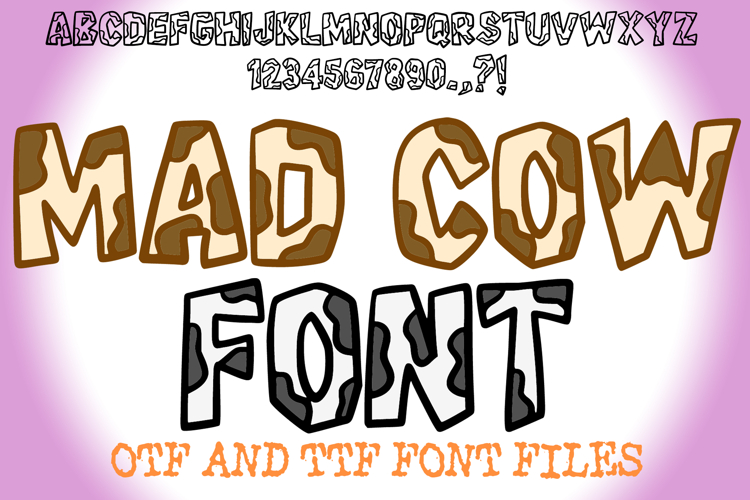
Mad Cow Print Handwriting Alphabet Lettering ABC Text Font
Moo-ve over, ordinary fonts! Unleash a dose of farmyard fun and quirky charm with Mad Cow Font! This delightfully unique typeface is designed to bring the iconic, playful patterns of cowhide directly to your text. It's more than just a font; it's an instant burst of rural whimsy, perfect for projects that demand a touch of rustic flair, unique texture, and undeniable visual appeal!
Each character in Mad Cow Font features a bold, slightly irregular outline, with its interior meticulously filled with an authentic and intricate cow print pattern. This unique and eye-catching visual effect makes it an ideal choice for farm-themed branding, children's products, dairy packaging, country fair signage, playful apparel designs, rustic event invitations, or any design calling for a unique blend of animal charm and animated personality.
Whether you're creating lively event promotions, designing daring product packaging, crafting exciting social media posts for country or farm-related brands, or adding an adventurous touch to digital art, this font will bring an undeniable sense of fun, originality, and a vibrant, energetic aesthetic to your work. Its clear yet playful forms ensure readability while delivering a memorable visual experience.
If you're looking to infuse your designs with a sense of playful adventure, quirky style, charming texture, and an undeniable touch of the farm, Mad Cow Font is your ultimate tool. Get udderly creative!